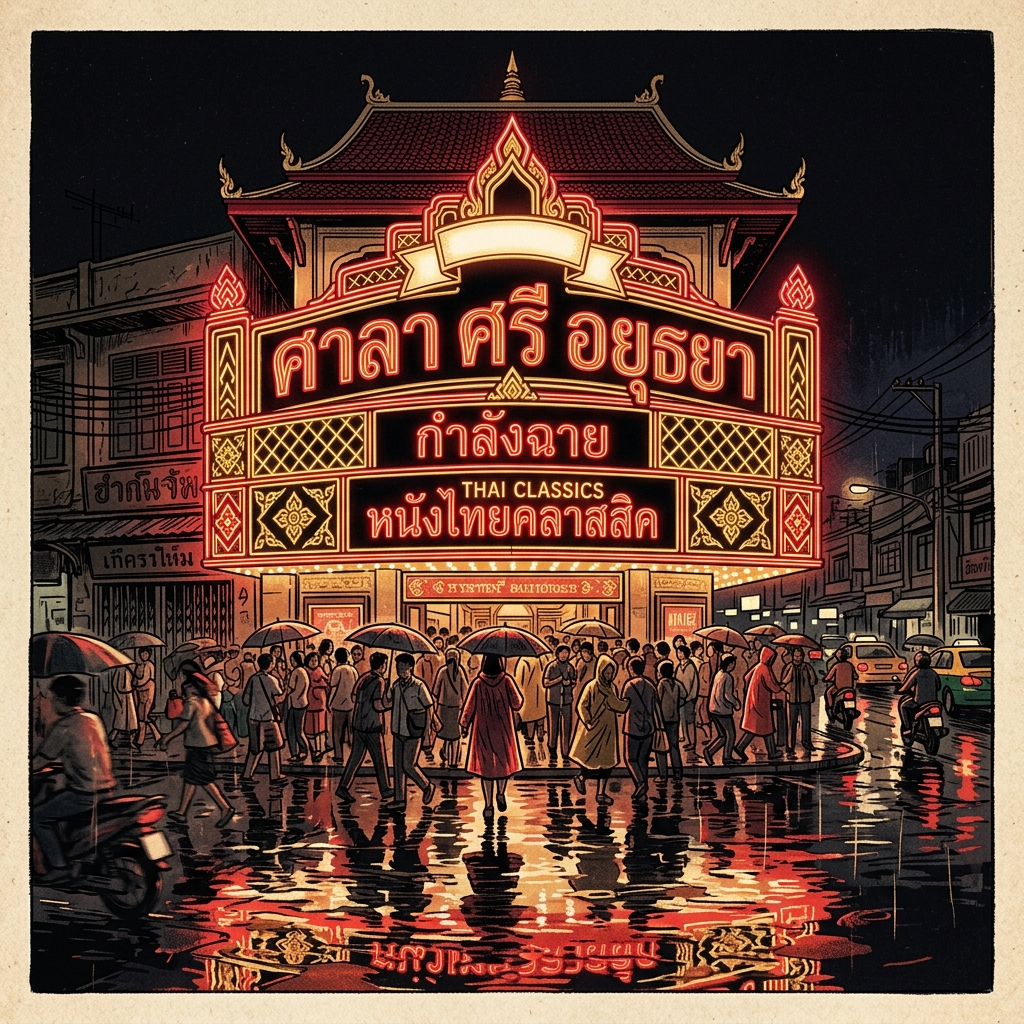
DB Adman X
ดีบี แอดแมน เอ็กซ์
DB Adman X specimen showing Thai and Latin characters
Designer
Parinya Rojarayanond (DB Fonts)
Foundry
DB Fonts (DB Designs Co., Ltd.)
Weights
Light, Regular, Medium, Bold, Black
What DB Adman X is
DB Adman X is a commercial display geometric Thai sans from DB Fonts, drawn specifically for advertising, packaging, and promotional display work where the type needs confidence and clean geometry. It ships in multiple weights under commercial per-user licensing.
The name (ดีบี แอดแมน) signals the intended market: advertising design. DB Fonts has positioned the font as a display workhorse for Thai agencies producing OOH, in-store, and packaging work where clean modern Thai display typography is non-negotiable and budget supports commercial licensing.
In the commercial Thai catalogue, DB Adman X sits alongside DB Helvethaica X as one of the foundry’s most widely deployed display releases. Where DB Helvethaica X slots into corporate identity, DB Adman X is the display counterpart for advertising and pack design.
Character design and tone
DB Adman X uses geometric loopless consonants, high x-height, and clean right-angle terminals tuned for high-impact advertising display at 40-120pt. The silhouette is squarer and more commercial-pop than Cadson Demak’s catalogue — built to carry big, to photograph well on OOH, and to stand up on crowded retail shelves.
Consonants like ก, ถ, ภ get clean geometric openings with no ornament. Terminals are cut horizontally at stem ends, echoing a Helvetica-school sensibility but with wider, more display-calibrated proportions. Stroke weight at Black pushes aggressively thick, which is where the font earns its keep for pack and poster work.
Tone marks are drawn proportionally heavy to stay readable on small-print pack callouts like “1+1 ฟรี” or “ราคาพิเศษ” against dense background photography. The Latin companion is a display geometric sans with proportions that match the Thai rhythm more than classical Latin cadence.
Weights and availability
Best use cases
DB Adman X is the correct choice for Thai advertising and packaging design where budget supports a commercial licence. Strong briefs:
Where it doesn’t fit: open-source projects (use Kanit, Prompt, or Chakra Petch for geometric loopless character under an open licence), body text use, and projects without commercial licence budget. And if the brief specifically needs a free condensed loopless option for tight headline setting, ThaiGraph Condensed covers it in four weights under the OFL.
Pairings
DB Adman X pairs with DB Fonts body fonts or with external open-licensed Thai body sans. Three pairings: